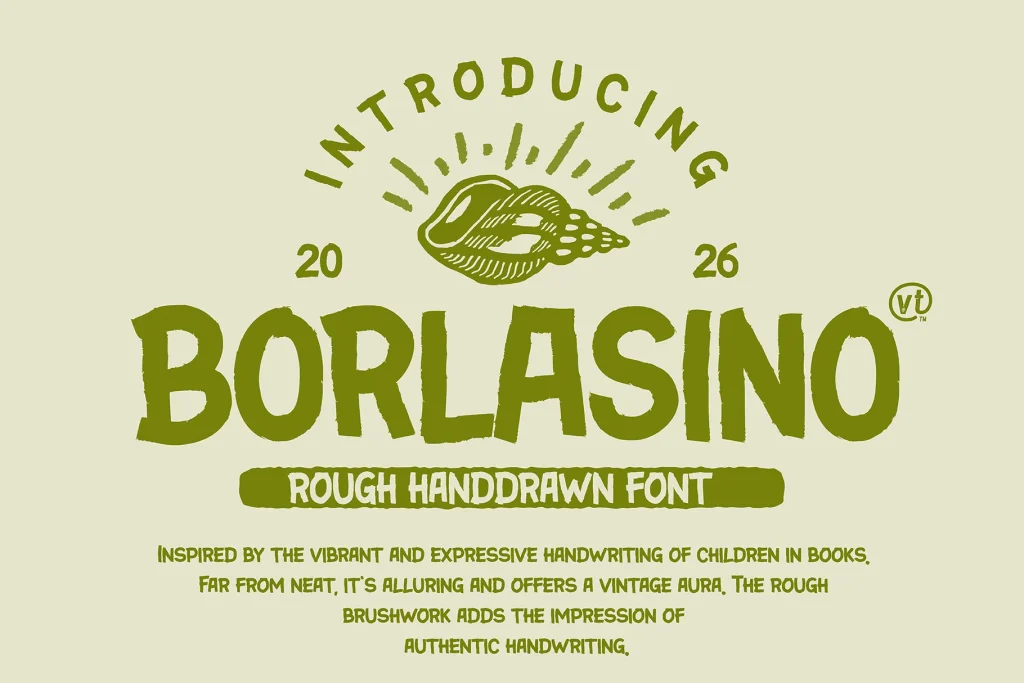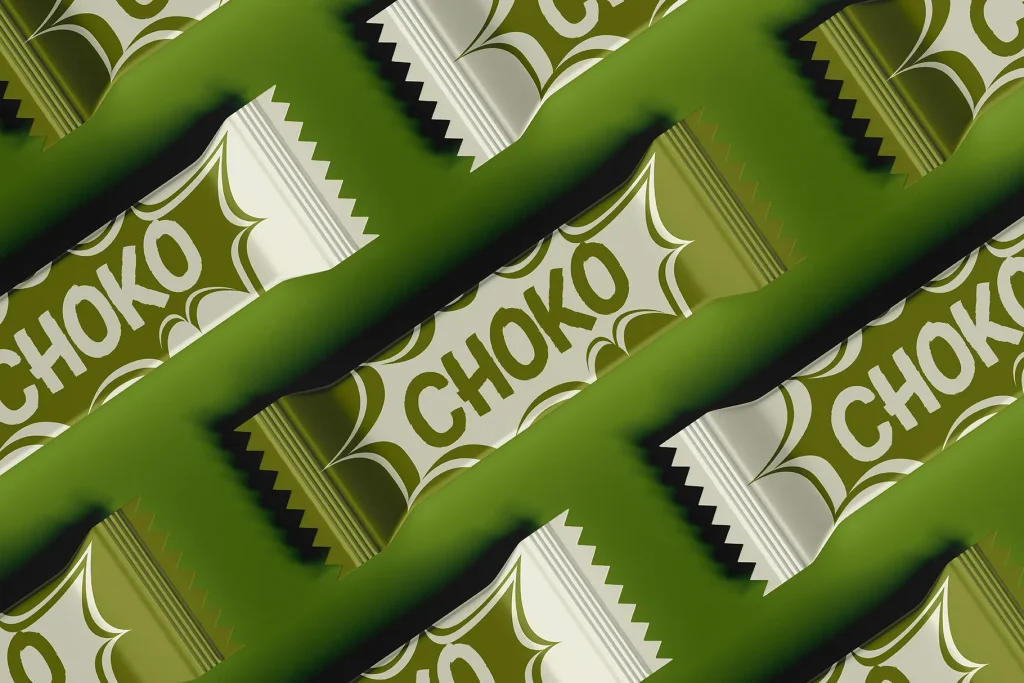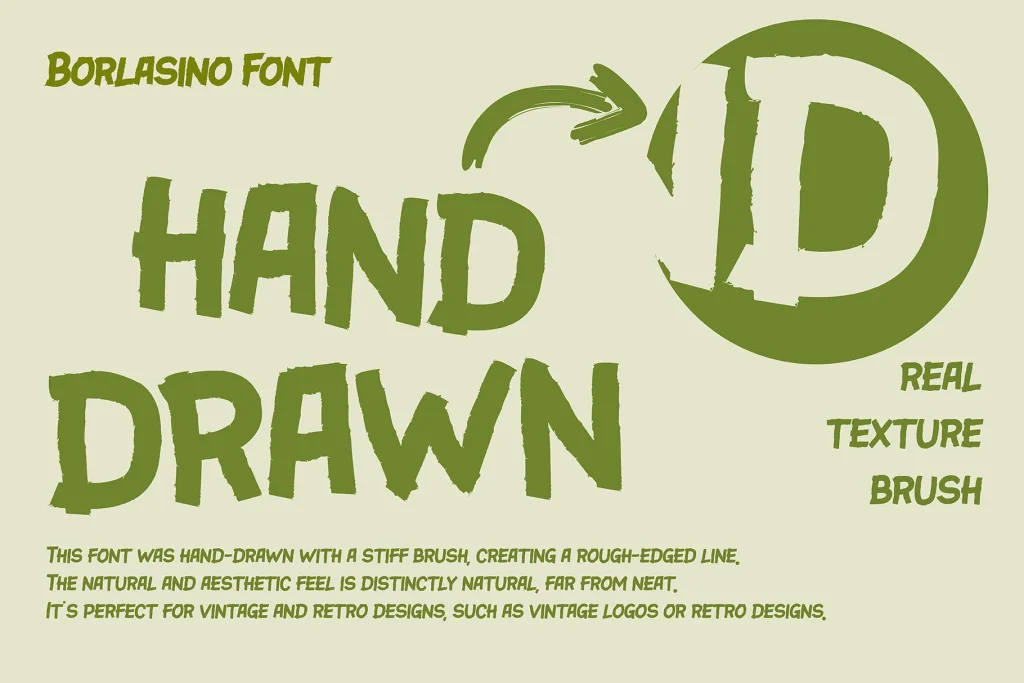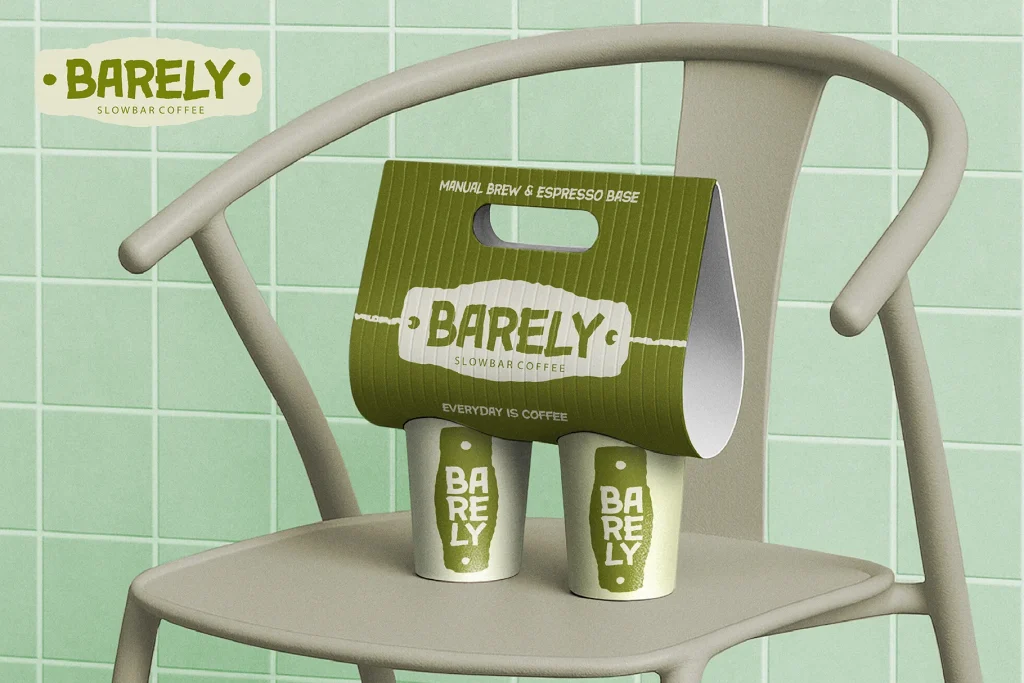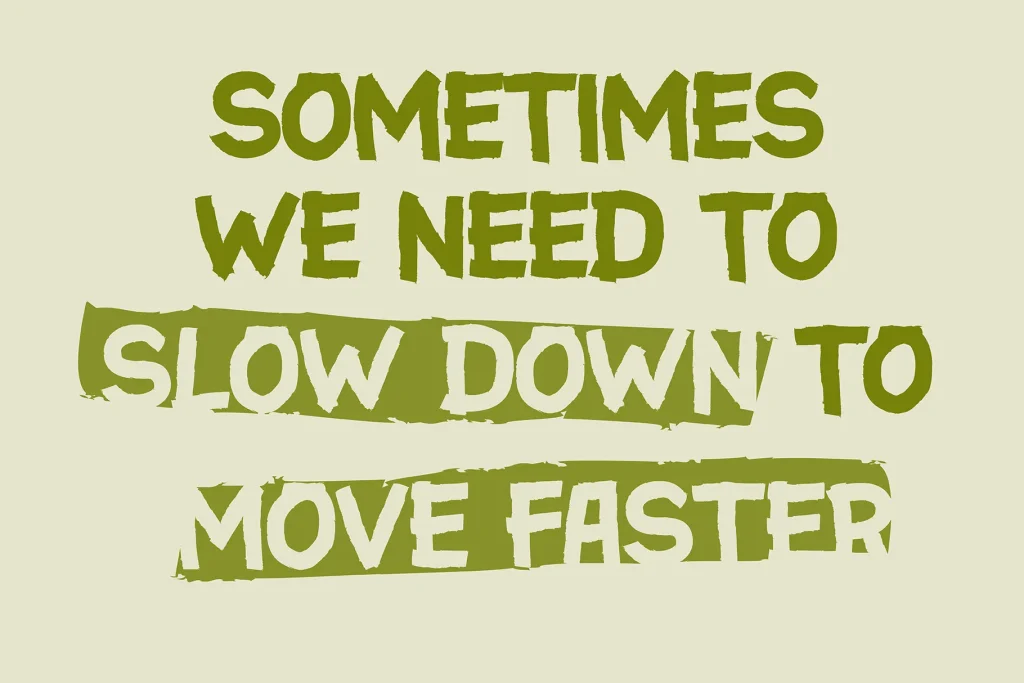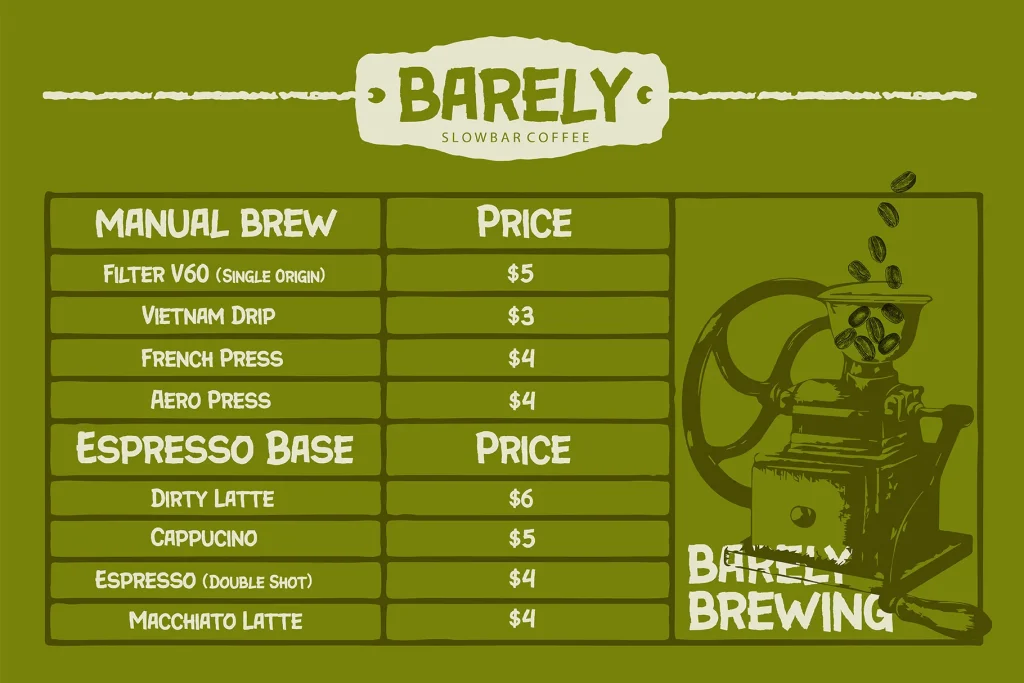
Borlasino Brush Font is a handcrafted vintage-inspired typeface featuring bold brush movement, organic texture, and authentic hand-drawn character for expressive branding and design.
In a design world increasingly shaped by AI-generated visuals and ultra-polished typography, authentic handcrafted fonts stand out more than ever. Borlasino โ Handcrafted Brush Font is a bold response to that shift, offering raw energy, organic texture, and expressive movement inspired by classic brush lettering.
Borlasino isnโt just a fontโitโs a statement of character, imperfection, and creative freedom.
The Inspiration Behind Borlasino Brush Font
Borlasino is rooted in vintage brush lettering, where every stroke carries intention and motion. Inspired by traditional hand-drawn signage, poster typography, and expressive brush scripts, this typeface captures the soul of analog design in a modern digital format.
Every character is crafted using real brush strokes, preserving:
-
natural texture
-
irregular edges
-
bold pressure variation
-
organic movement
This gives Borlasino a genuine handcrafted feel that feels alive and expressive on any canvas.
Why Bold Brush Movement Matters in Design
Bold movement in brush typography creates visual rhythm and emotional impact. Unlike clean geometric fonts, brush fonts like Borlasino communicate energy, passion, and authenticity.
This makes Borlasino especially effective for:
-
branding and logo design
-
packaging and labels
-
posters and editorial headlines
-
apparel and merchandise
-
social media graphics
The strong stroke flow and dynamic letterforms immediately grab attentionโideal for designs that need to stand out.
Organic Texture as a Visual Advantage
One of Borlasinoโs strongest features is its organic texture. The visible brush grain and natural imperfections create depth and tactility that AI-generated fonts often lack.
In todayโs market, imperfections signal:
-
human craftsmanship
-
authenticity
-
emotional warmth
-
premium handcrafted quality
This makes Borlasino perfect for brands that want to feel personal, bold, and trustworthy.
Vintage-Inspired, Yet Timeless
Although Borlasino draws inspiration from classic brush lettering, it remains highly versatile for modern design. The balance between vintage character and contemporary usability allows it to adapt across different creative contexts.
Designers frequently use Borlasino for:
-
retro branding concepts
-
lifestyle and creative brands
-
food & beverage packaging
-
music and event posters
-
streetwear and fashion visuals
Its timeless brush style ensures it wonโt feel datedโeven as trends evolve.
Designed for Designers: Practical and Powerful
Beyond aesthetics, Borlasino is built for real-world use. The font is carefully structured to ensure:
-
consistent readability
-
balanced spacing
-
strong visual hierarchy in headlines
-
compatibility across digital and print formats
This makes Borlasino a reliable choice for professional designers who need both style and functionality.
Final Thoughts: A Font with Soul
Borlasino โ Handcrafted Brush Font proves that human-made design still matters. In a time when automation dominates, handcrafted typography delivers something irreplaceable: soul.
If your design needs bold expression, organic texture, and authentic handcrafted energy, Borlasino offers a powerful typographic voice that stands apart from generic digital fonts.